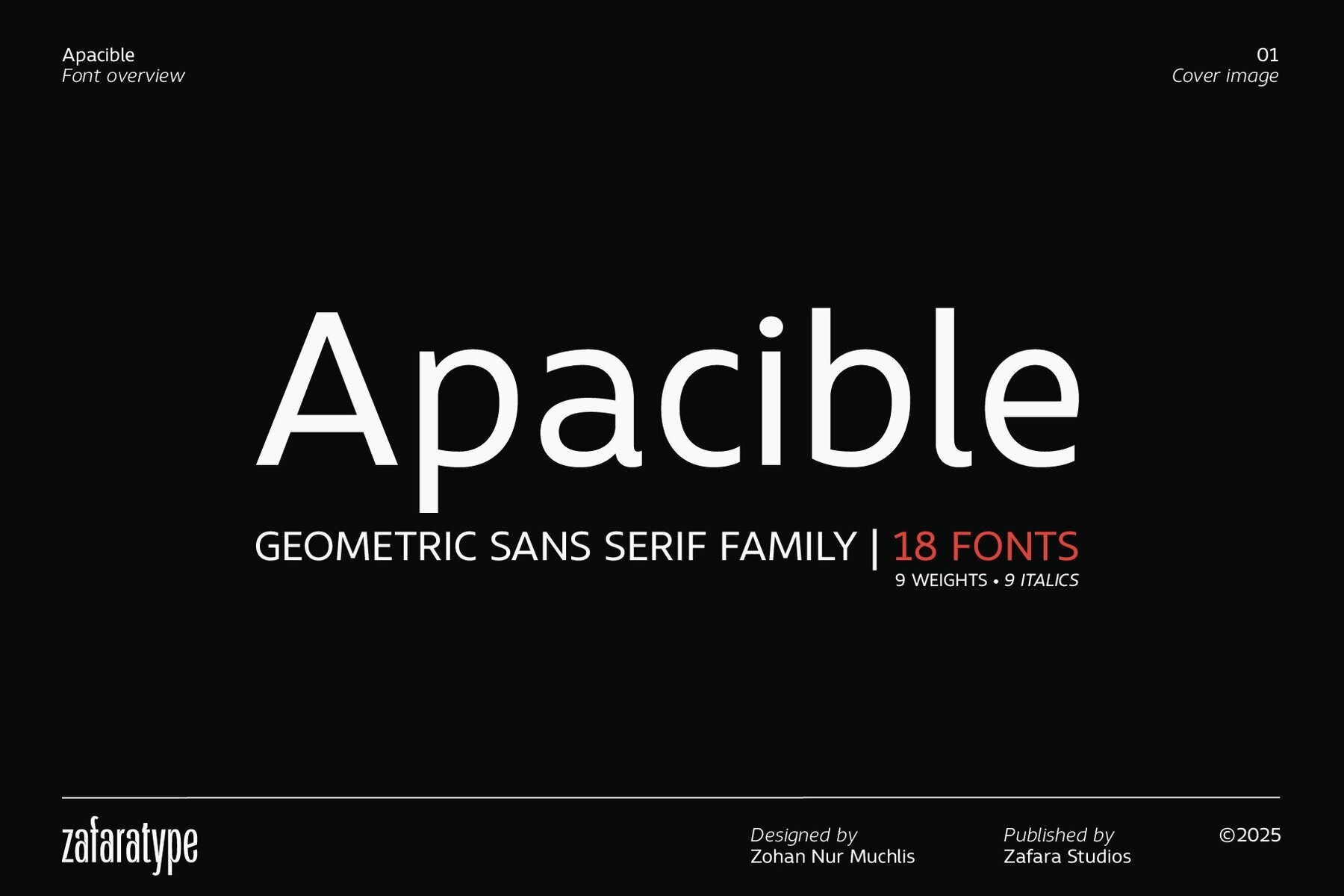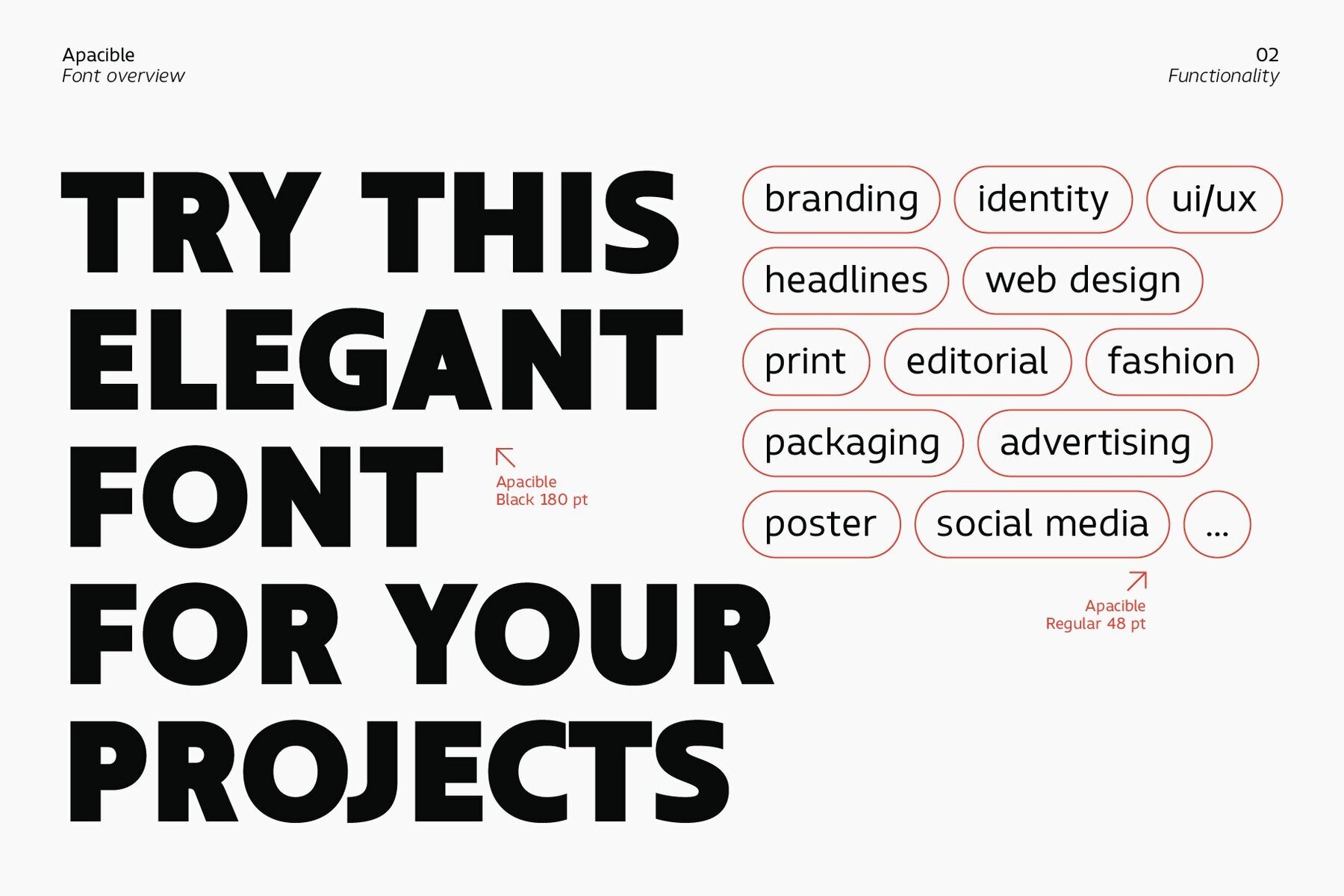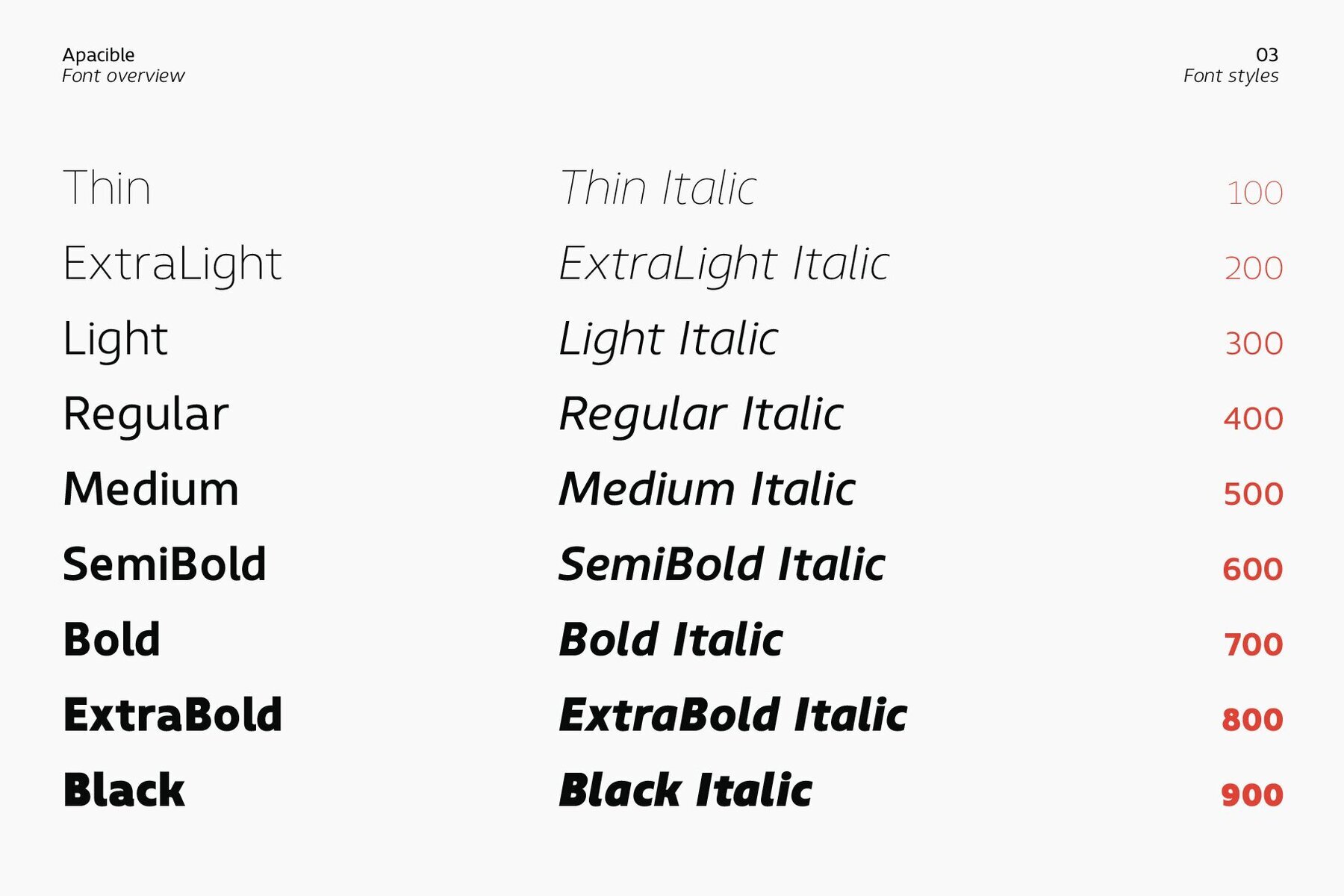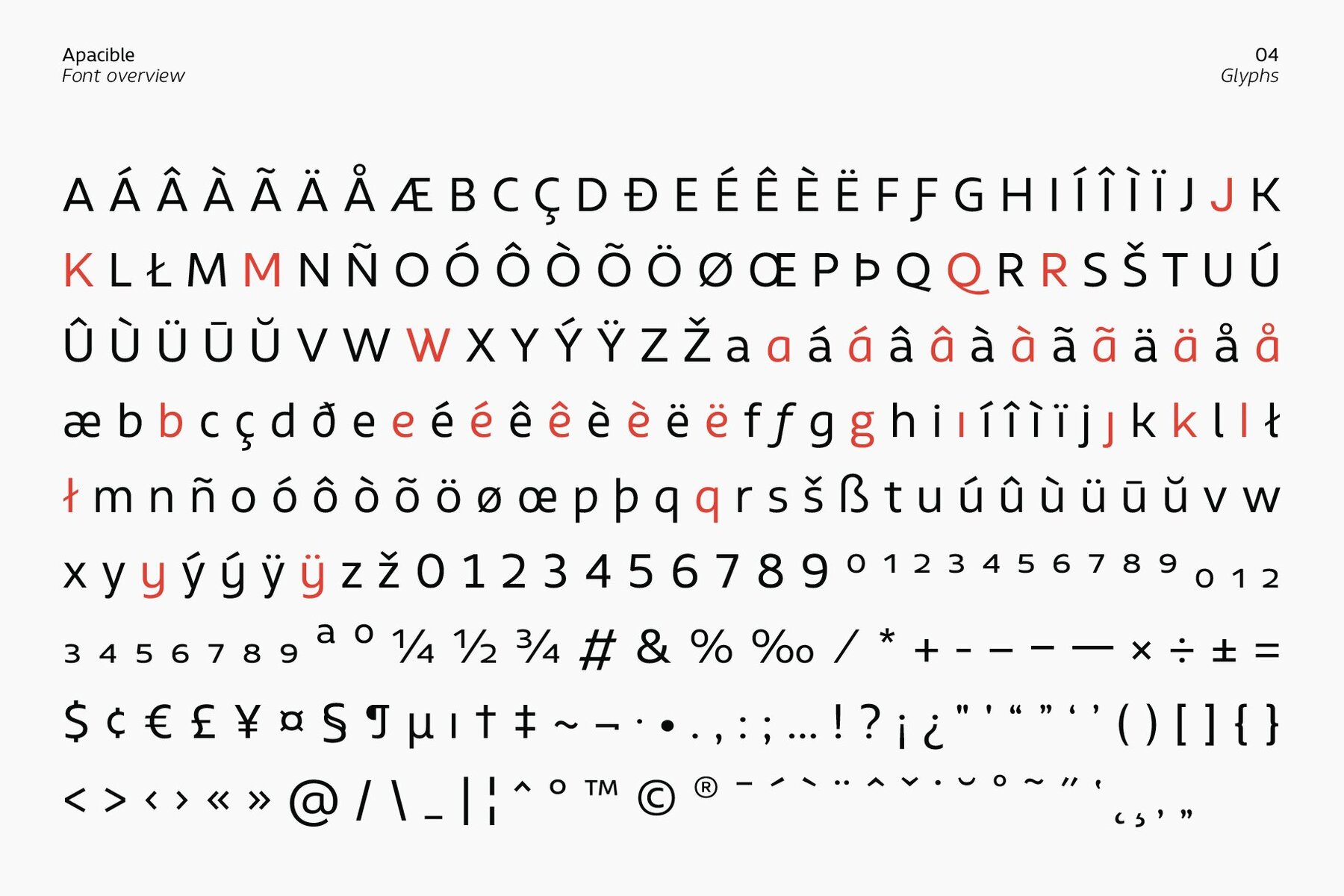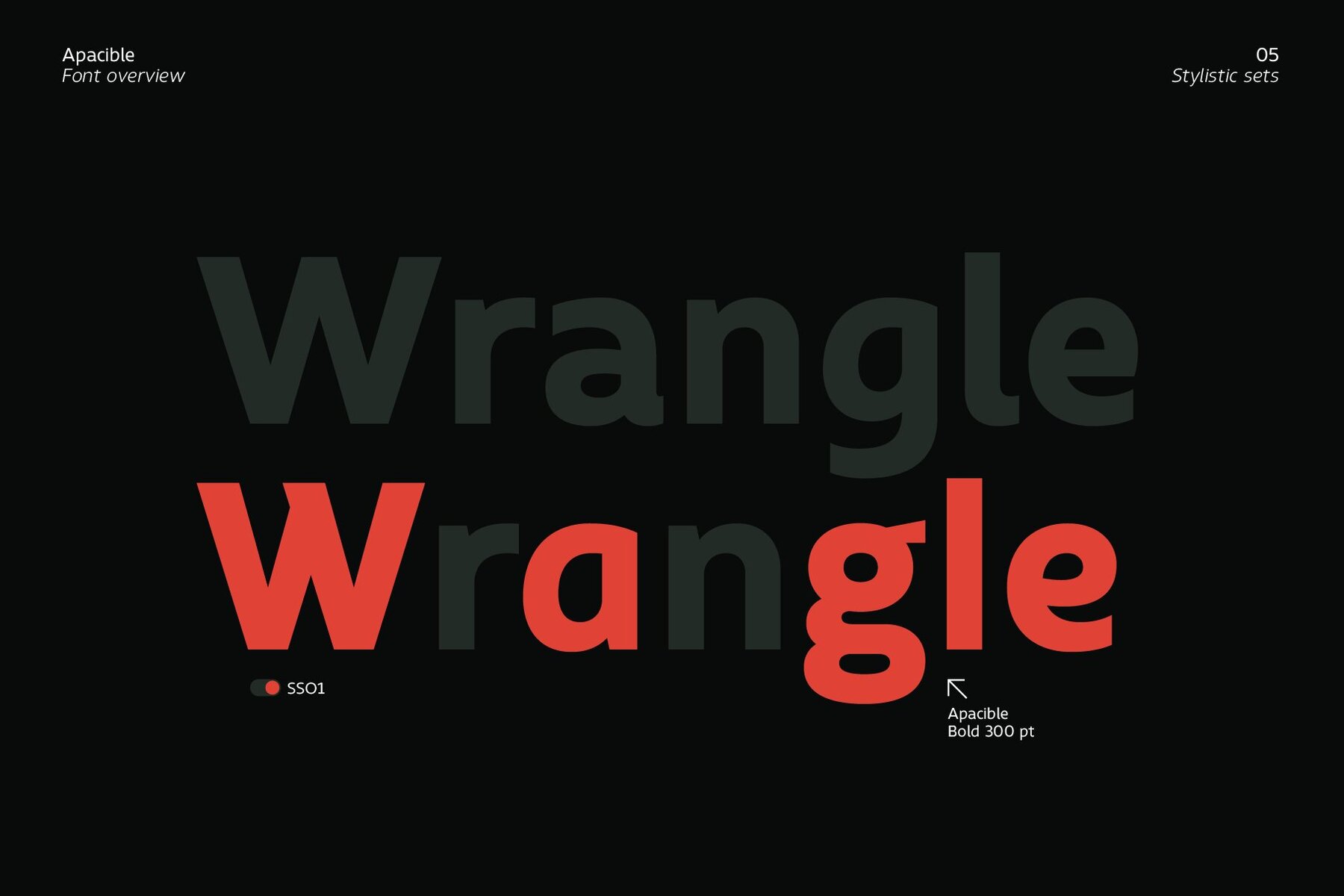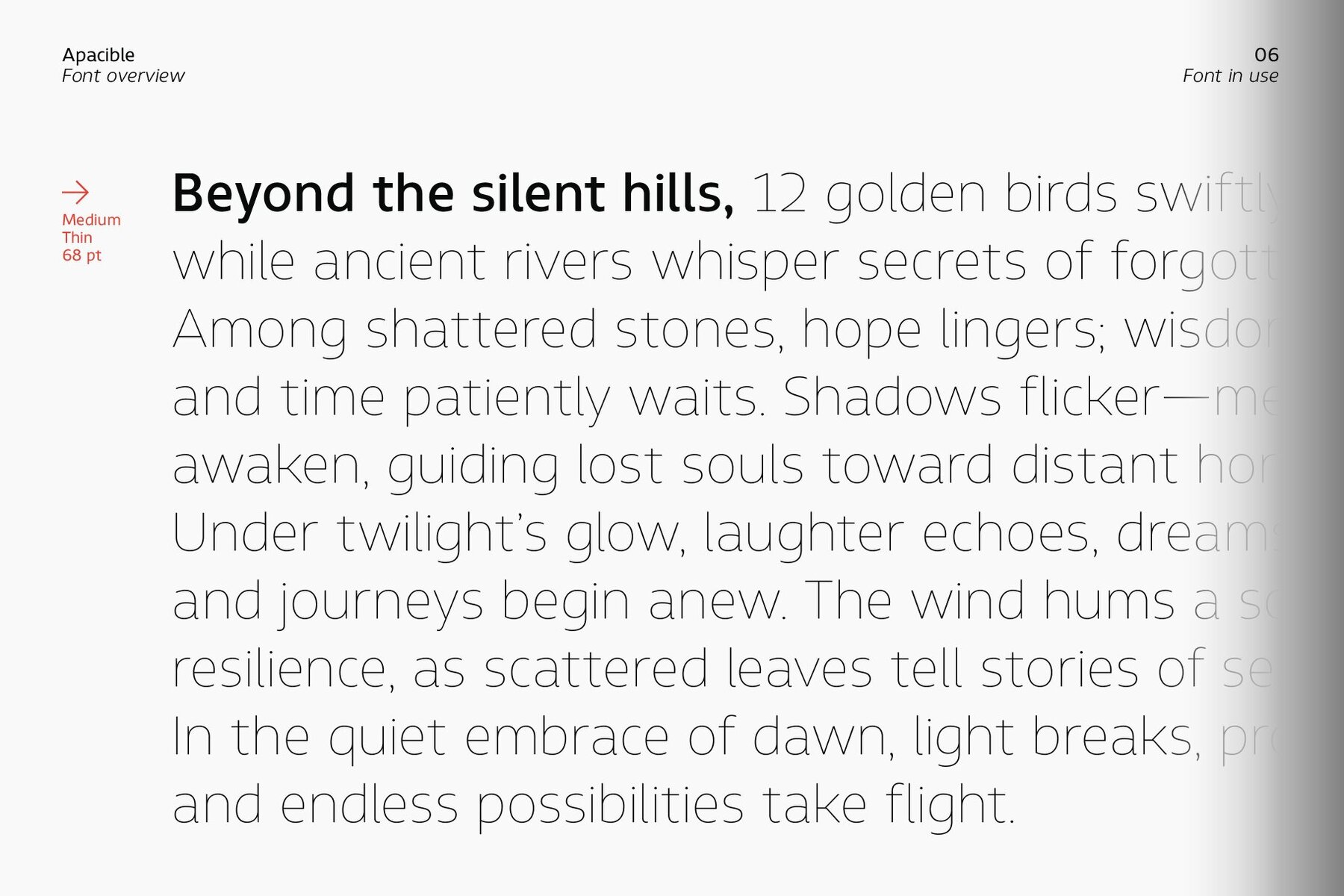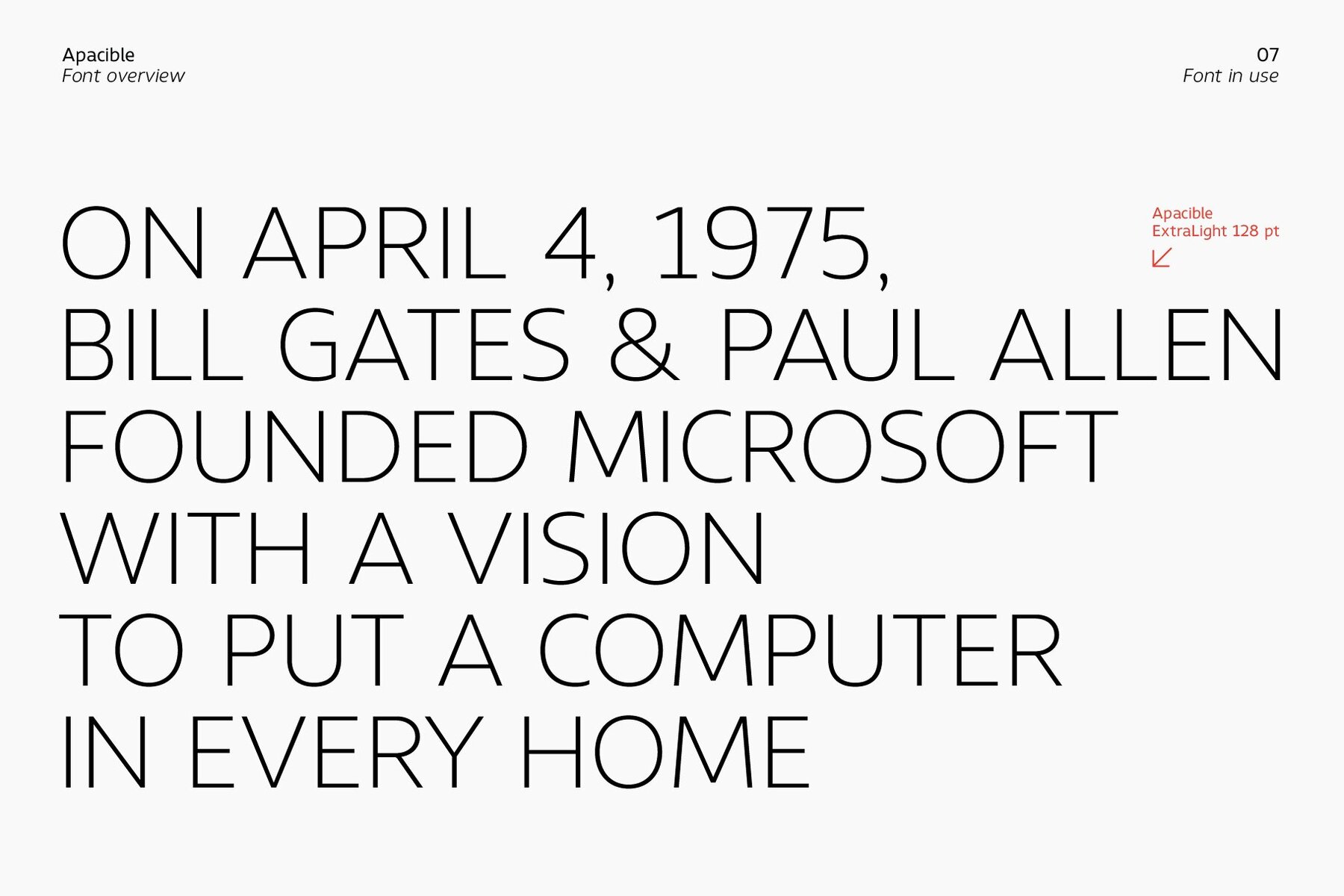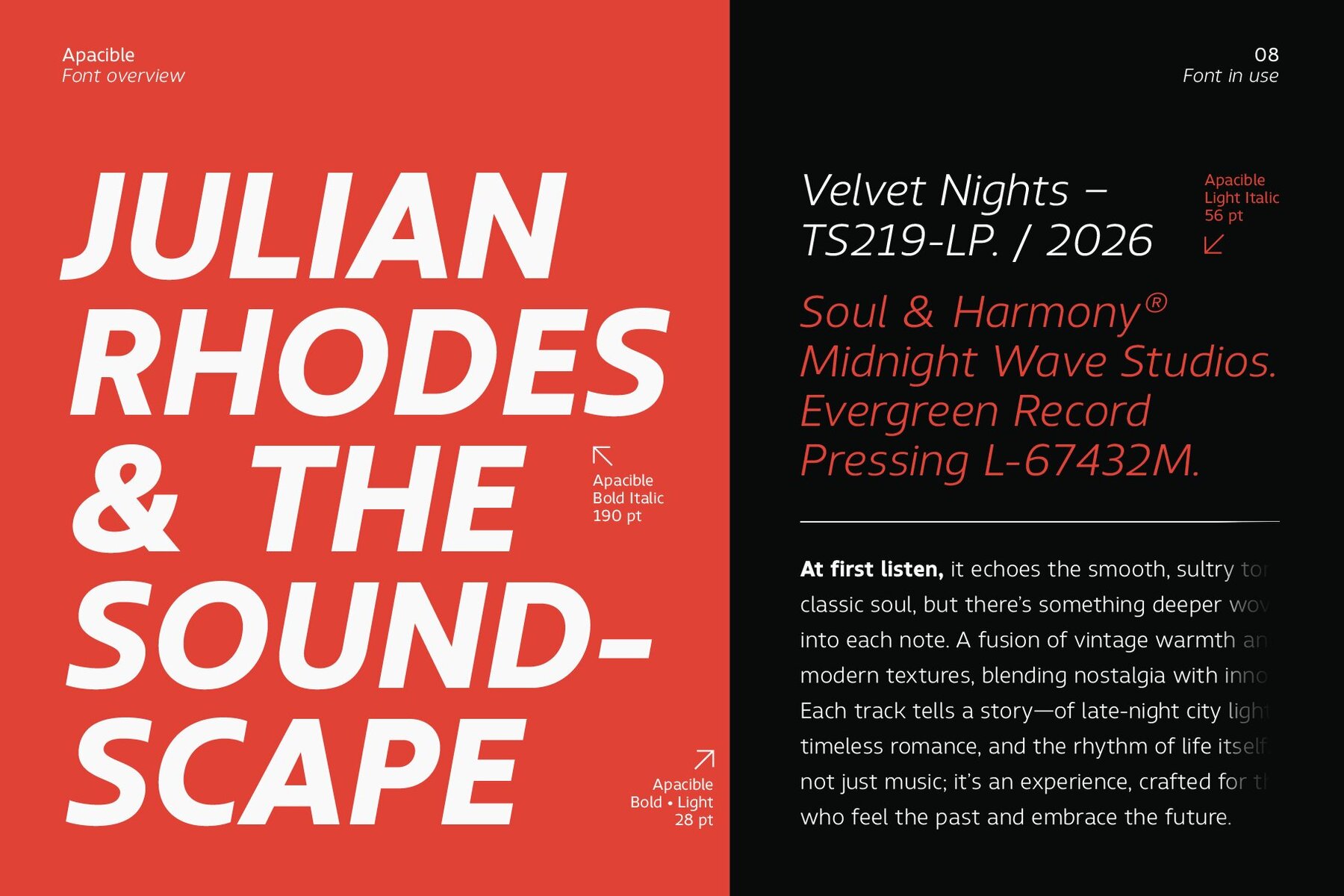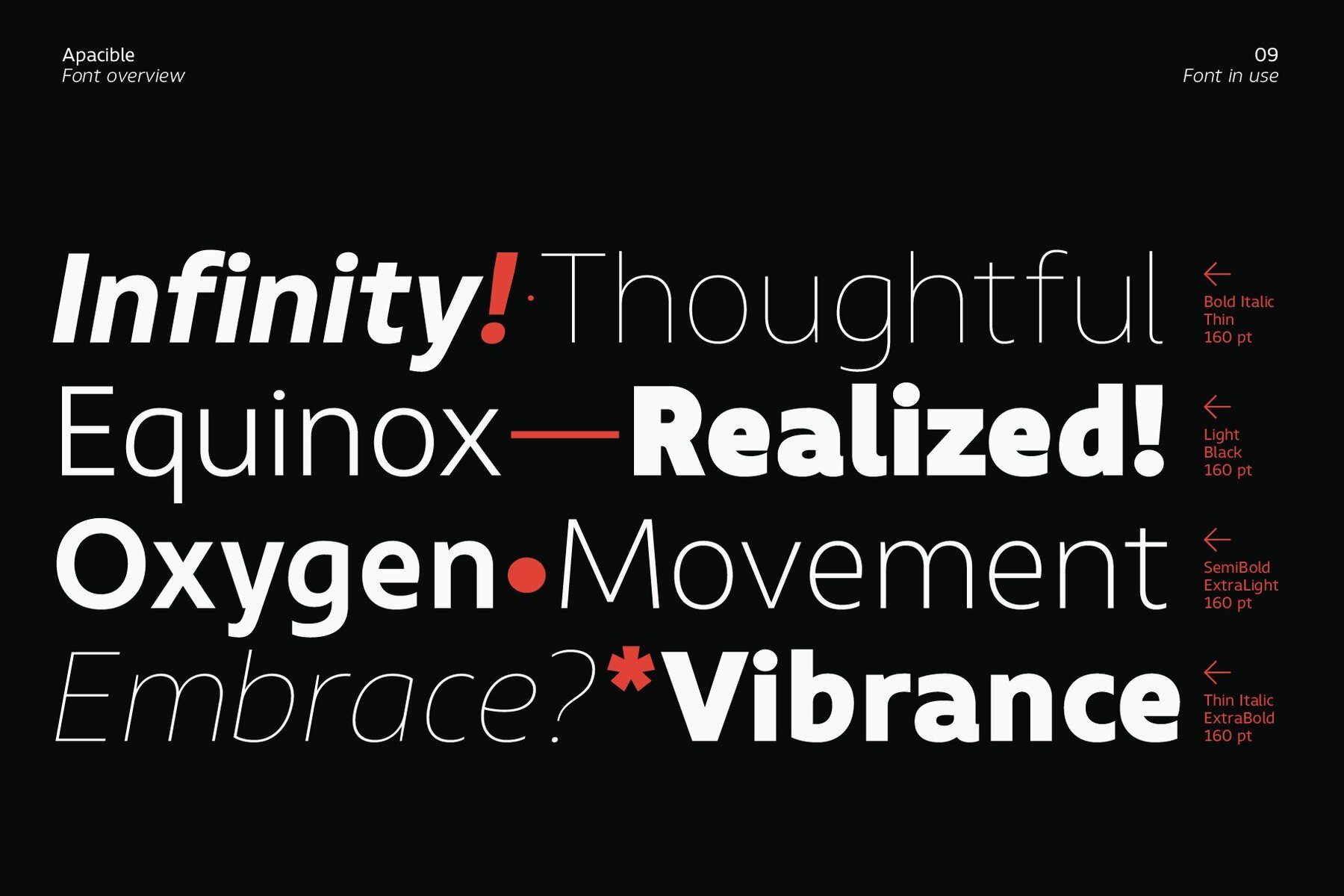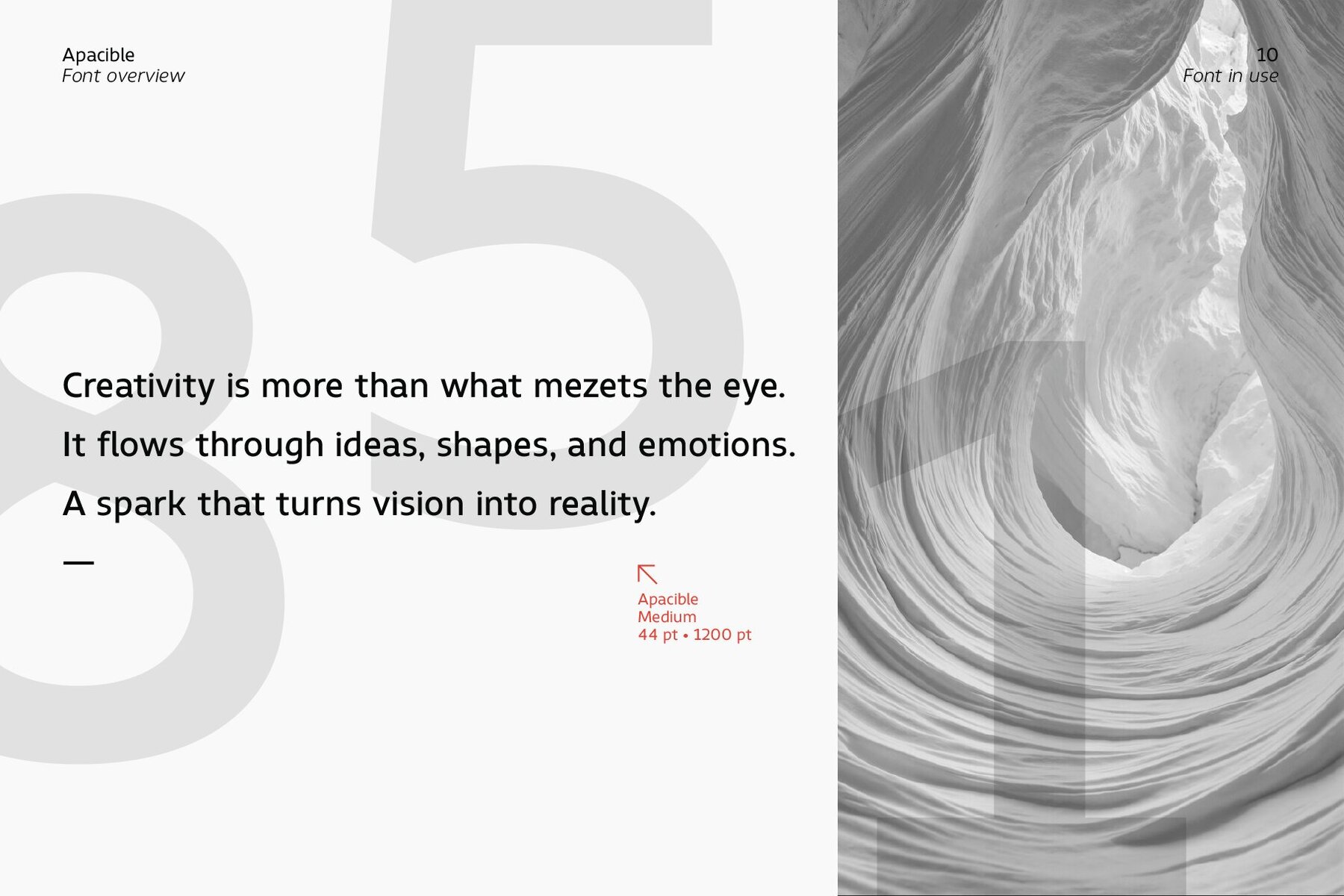
Apacible Font
Apacible is a versatile geometric sans serif family that brings a clean, modern, and professional touch to any design project. Featuring 18 styles (9 weights plus matching italics), this font family is perfect for everything from bold headlines and eye-catching branding to refined editorial layouts and user-friendly interfaces. Key Features Whether you need a strong statement for headlines or a polished body text, Apacible’s balanced proportions and generous spacing make it easy to read and visually appealing. Elevate your projects with a contemporary typeface that offers both functionality and flair—choose Apacible for a seamless blend of modern minimalism and timeless elegance.